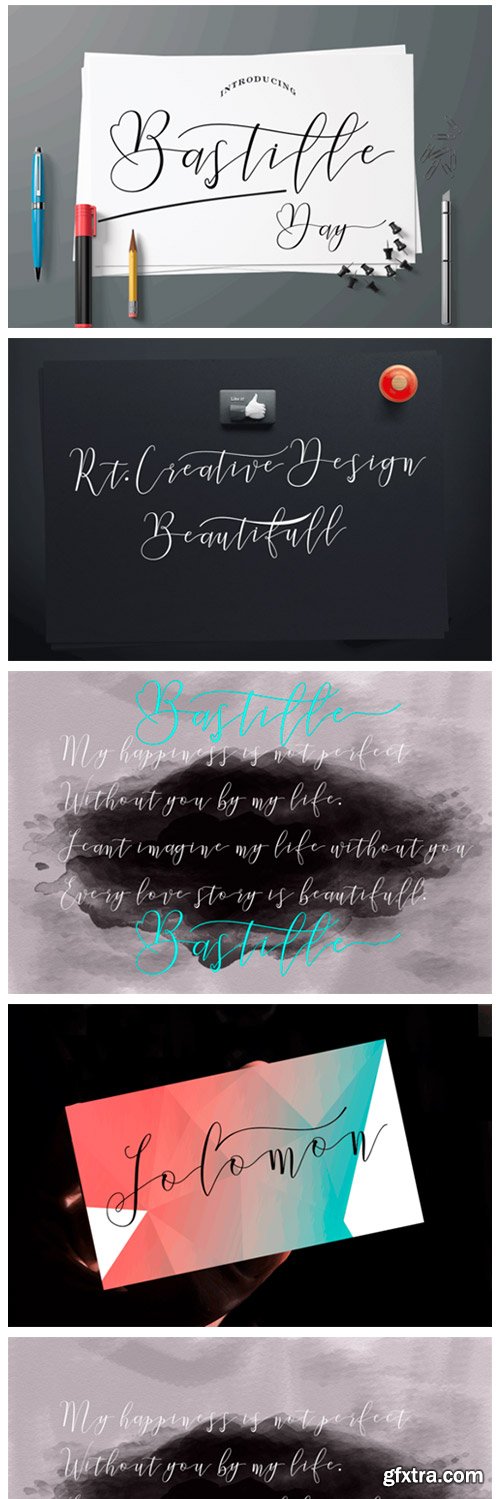
Bastille Day Font
Bastille Day Modern Calligraphy. This font was designed by handwriting, and it has a modern and unique forms of calligraphy, the writing style is very natural. Can be used for various purposes such as headings, logos, wedding invitations, t-shirts, letterheads, signage’s, labels, news, posters, badges etc.